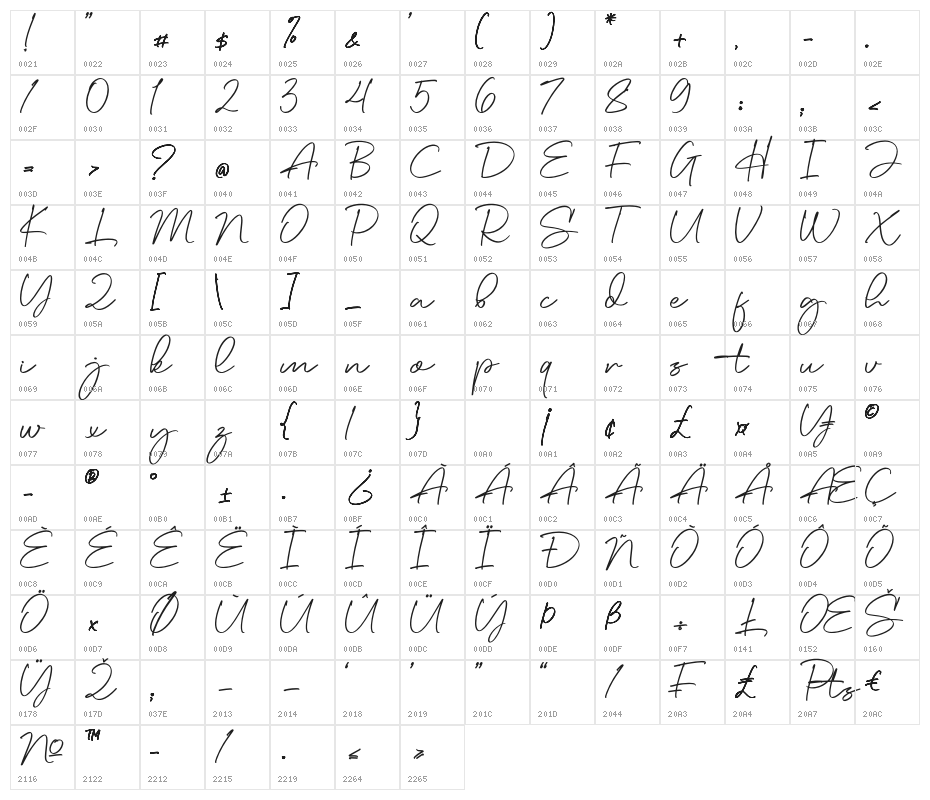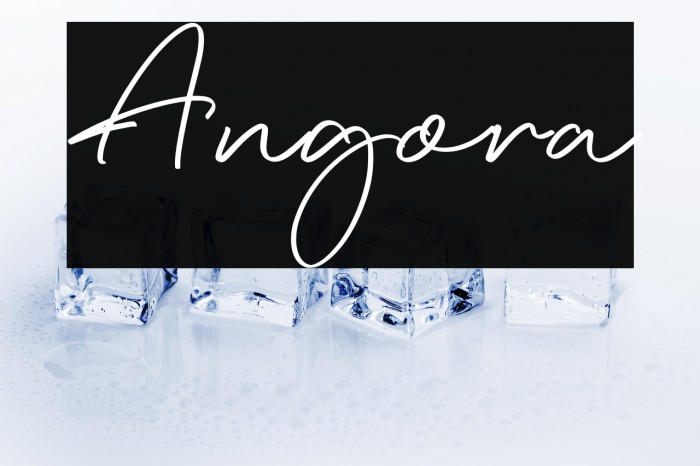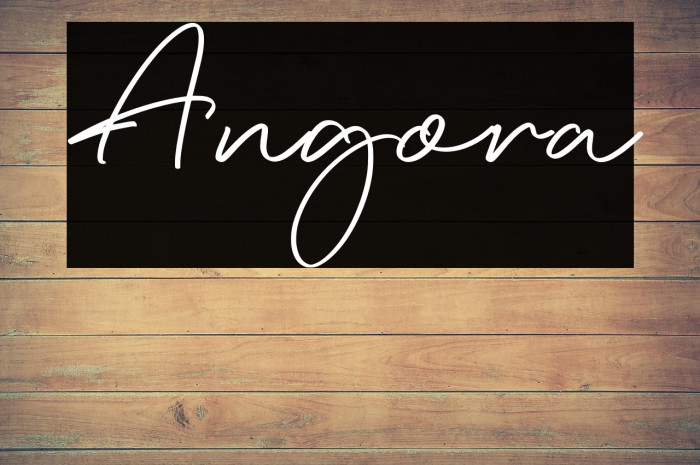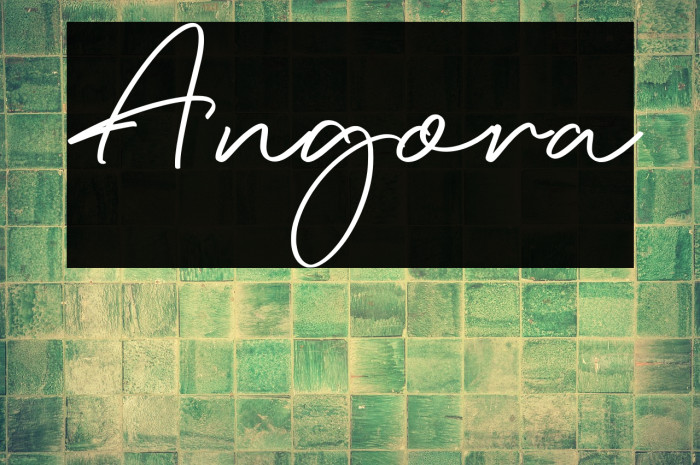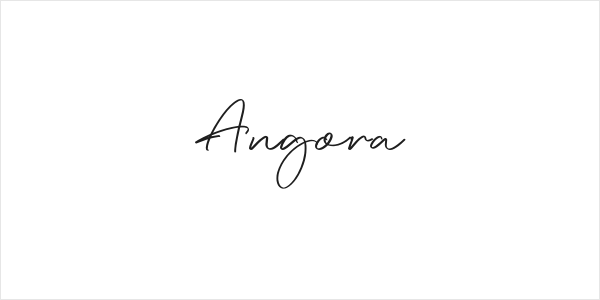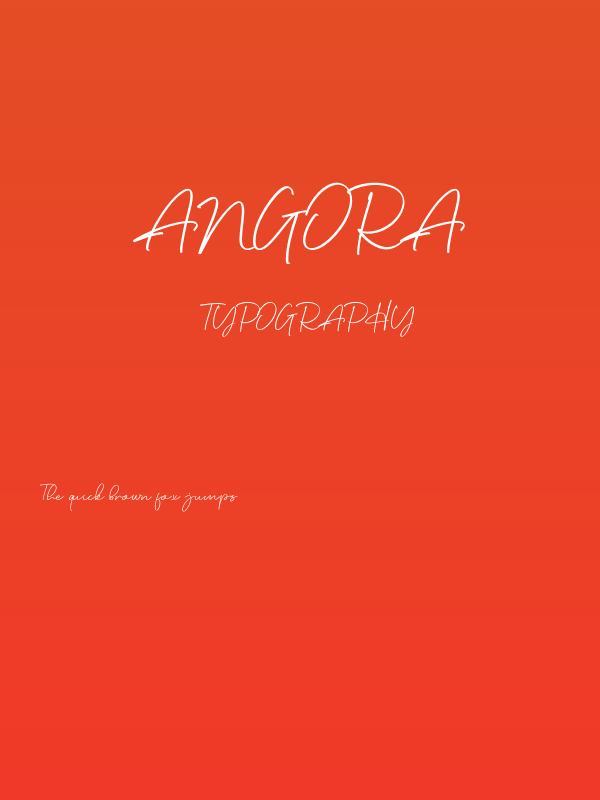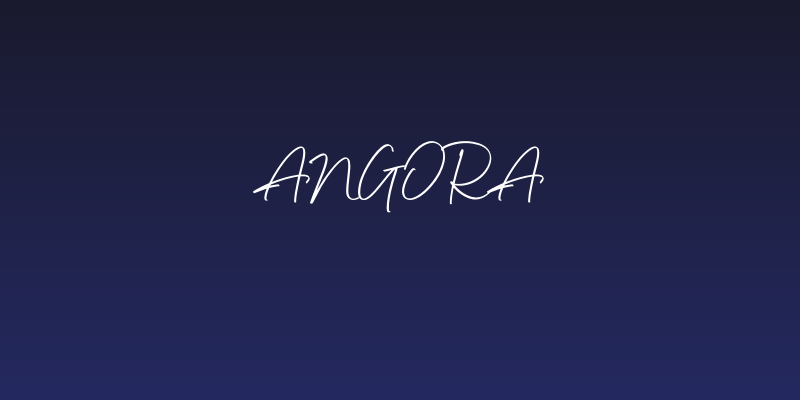
Angora Font
Angora Description
This font exudes a casual elegance with its fluid, cursive style. The letters are interconnected, creating a seamless flow that mimics natural handwriting. The uppercase characters maintain a consistent height, while the lowercase letters exhibit a slight slant, enhancing the handwritten feel. The numerals are distinct yet harmonious with the overall script style. Special characters are thoughtfully designed to match the font's aesthetic, making it versatile for various uses. The strokes are consistent in weight, providing a balanced appearance without dramatic contrast.
| Overall Style | Elegant, Handwritten |
| Use Case | Logos, Invitations, Personal Branding |
| Proposed Projects | Ideal for wedding invitations, personal branding, greeting cards, and elegant packaging designs. |